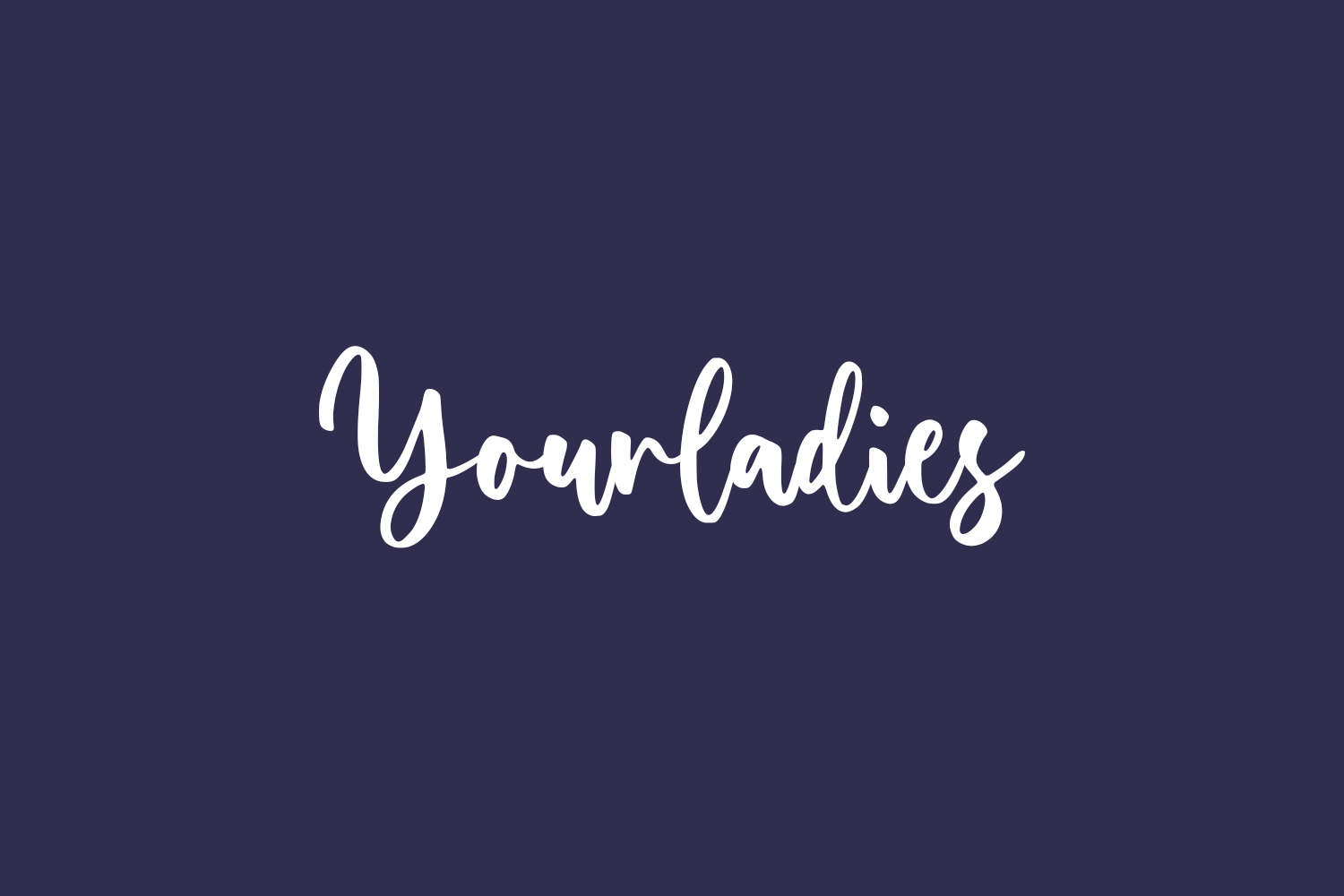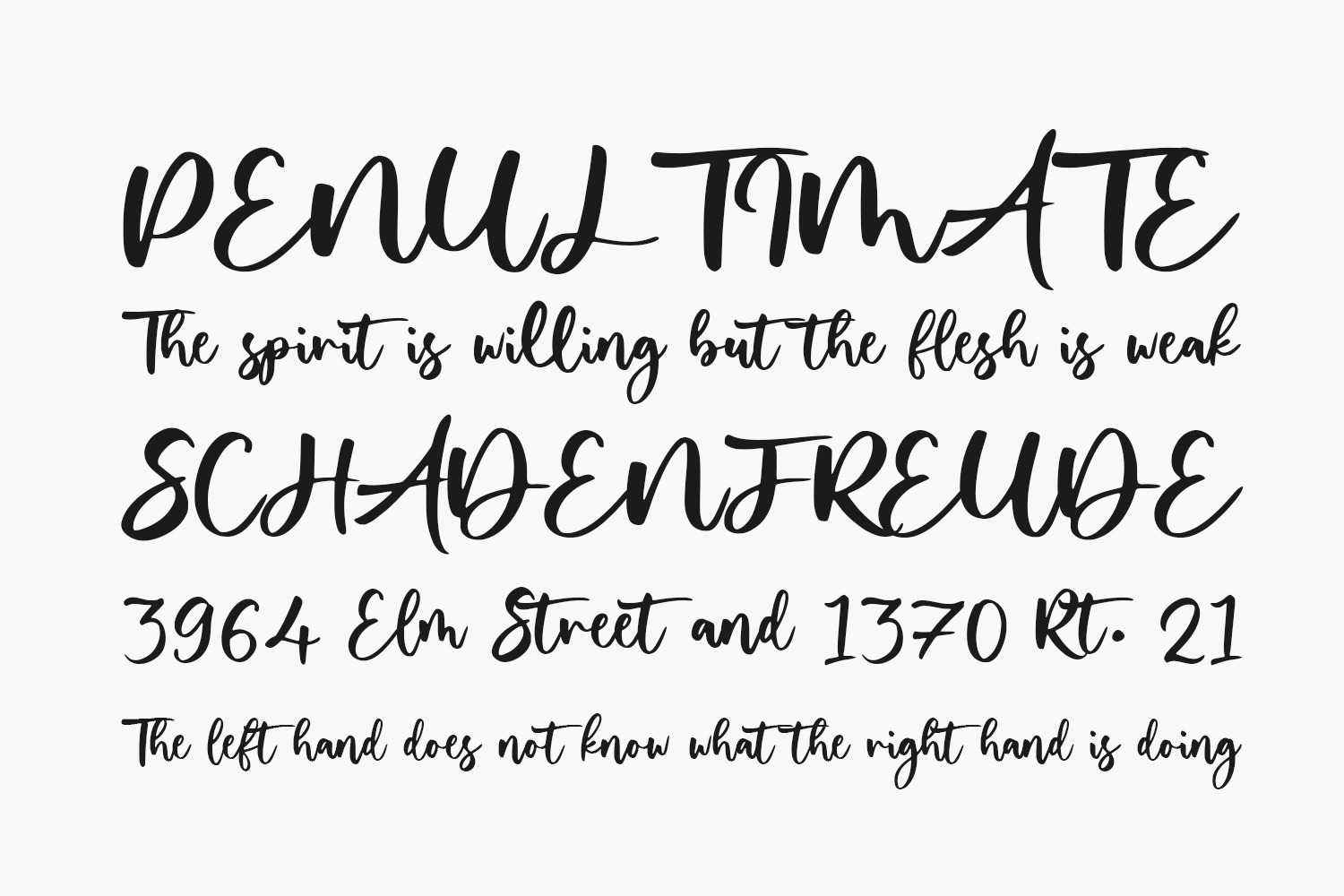
Yourladies Free Font is a sweet and delicate handwritten font. Dainty and joyful, this font will be ideal for writing wedding invitations, cards or any other design that may need a romantic, personalized touch. Yourladies Free Font was designed by Balpirick Studio and is free for personal use only. Please purchase the full version for commercial use.
Designed by Balpirick Studio